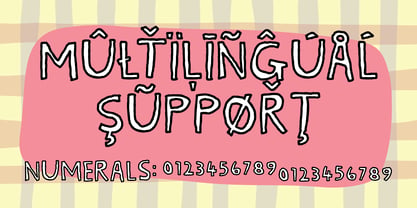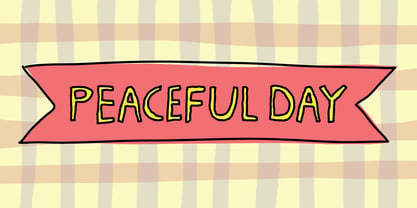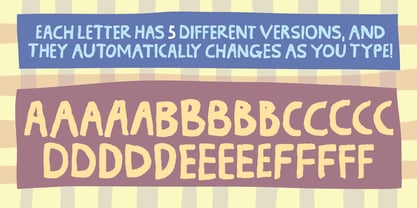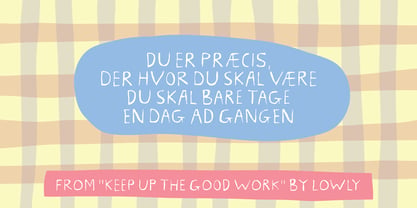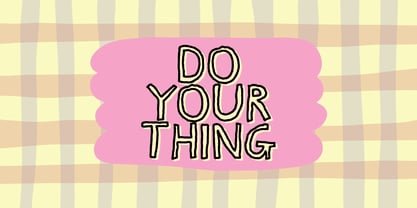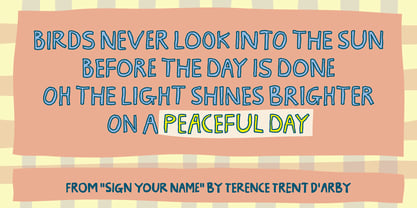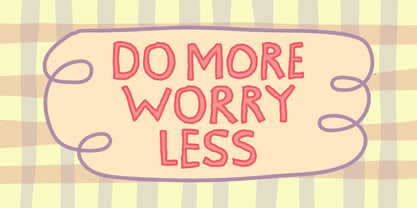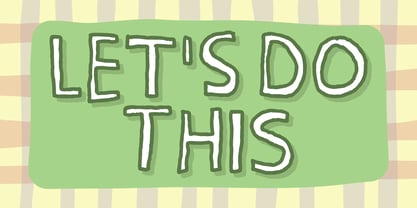
Peaceful Day
The Peaceful Day Font Family was designed by Jakob Fischer and published by PizzaDude.dk. Peaceful Day contains 3 styles and family package options. More about this family
Peaceful Day is a peaceful font. It has a warm, playful, hand-drawn personality that feels cheerful, relaxed, and slightly whimsical. The letterforms are rounded and soft, with uneven stroke edges that imitate marker or brush pen lines rather than precise vector geometry. Each character appears intentionally imperfect, giving the typeface a lively, human touch as if it were written casually on a sign or poster. The strokes vary subtly in thickness, creating a gentle rhythm that keeps the text visually engaging without becoming chaotic. I have added 5 different versions of each letter, and they changes automatically as you type!